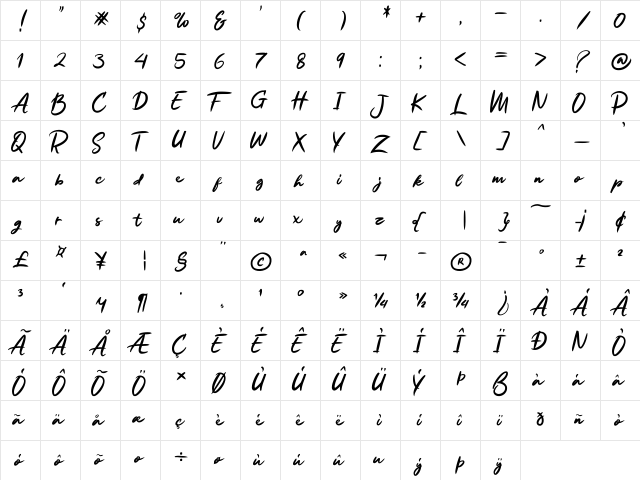
Ruthen Back Regular
Design Context for Ruthen Back Typeface
Ruthen Back is a composed and adaptable typeface that performs quietly and consistently across a wide range of design contexts.